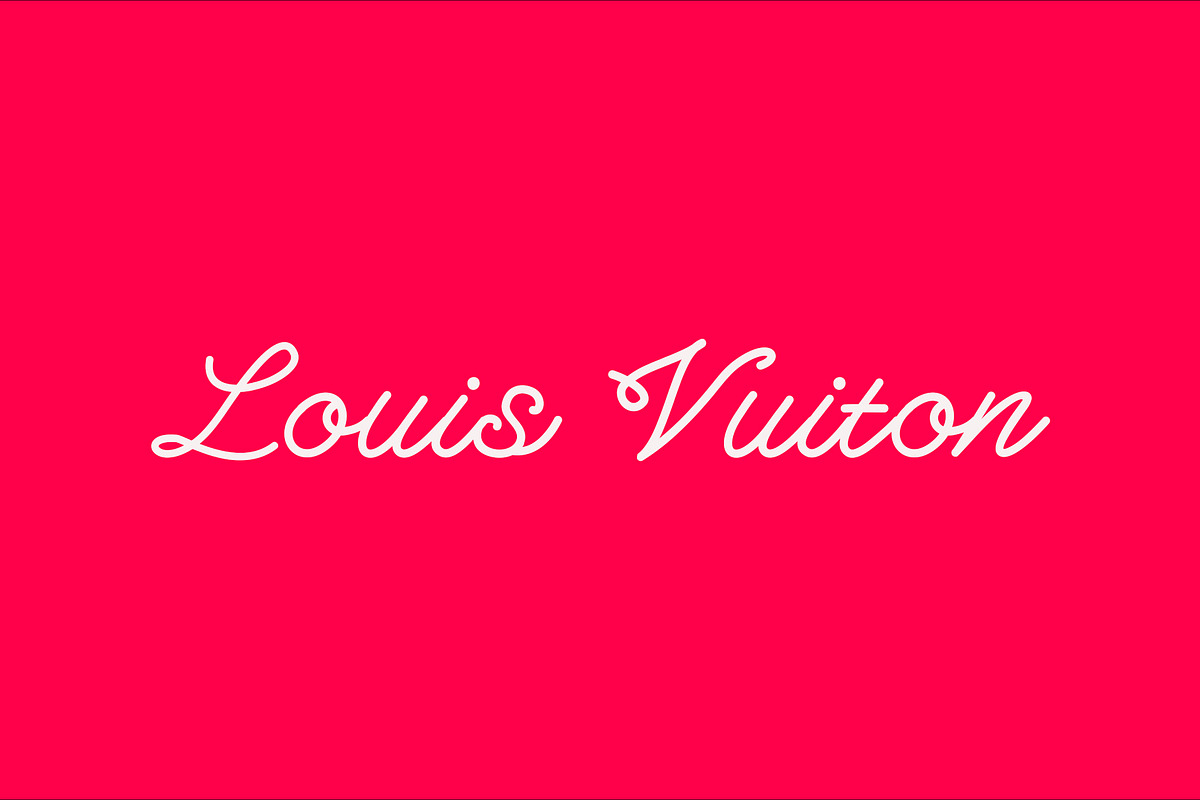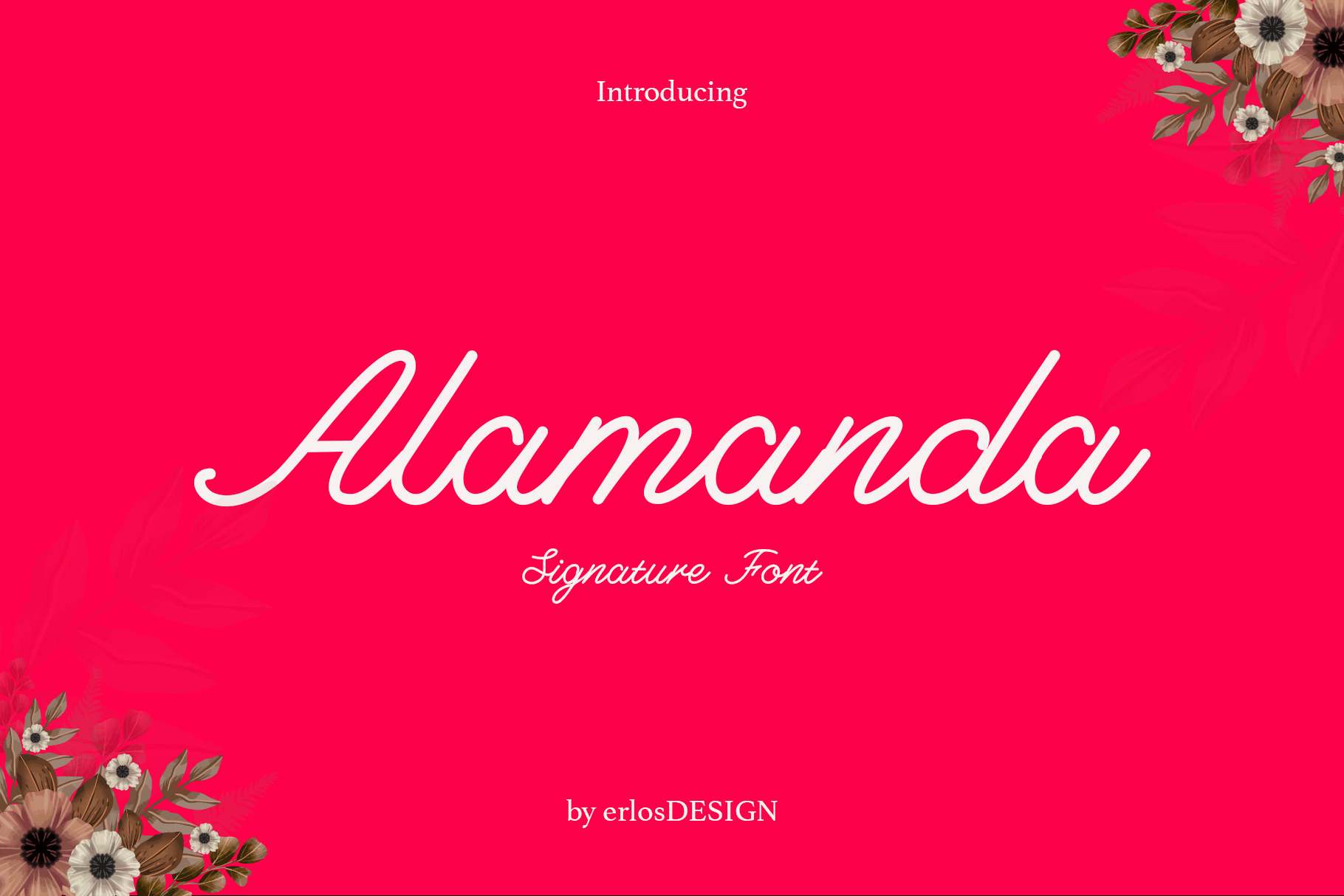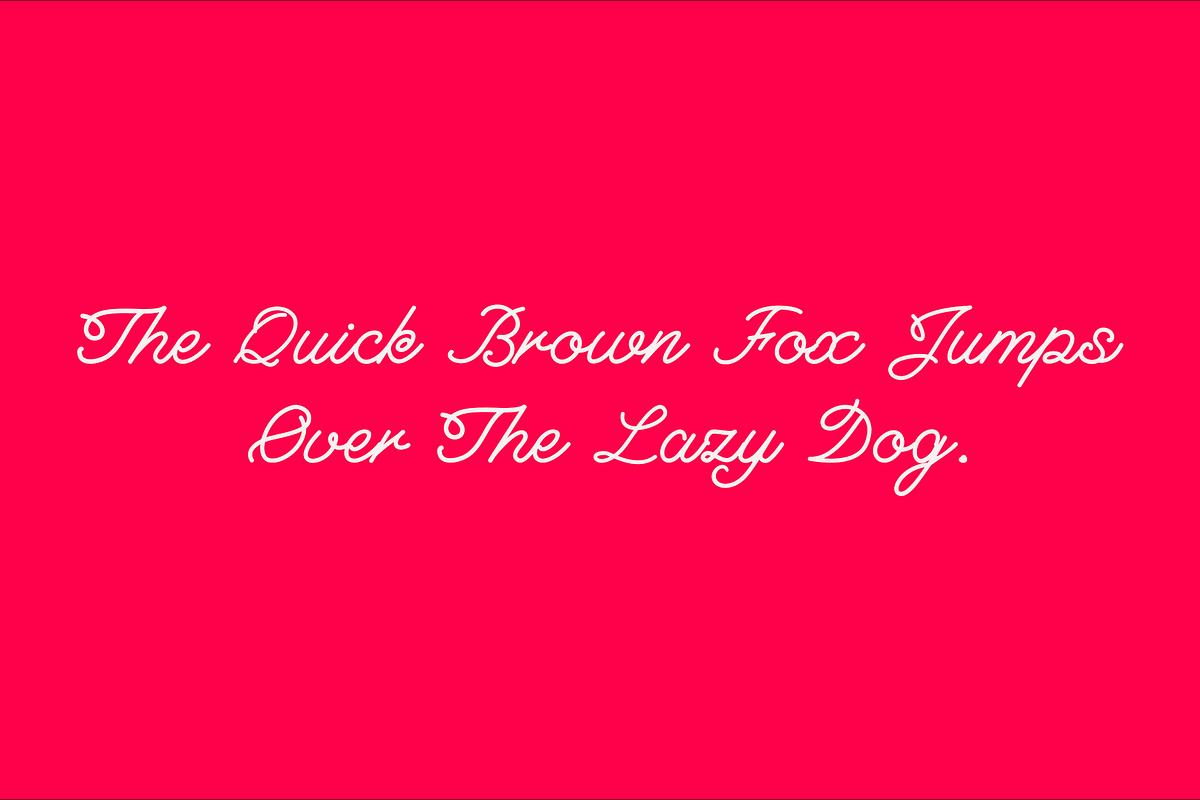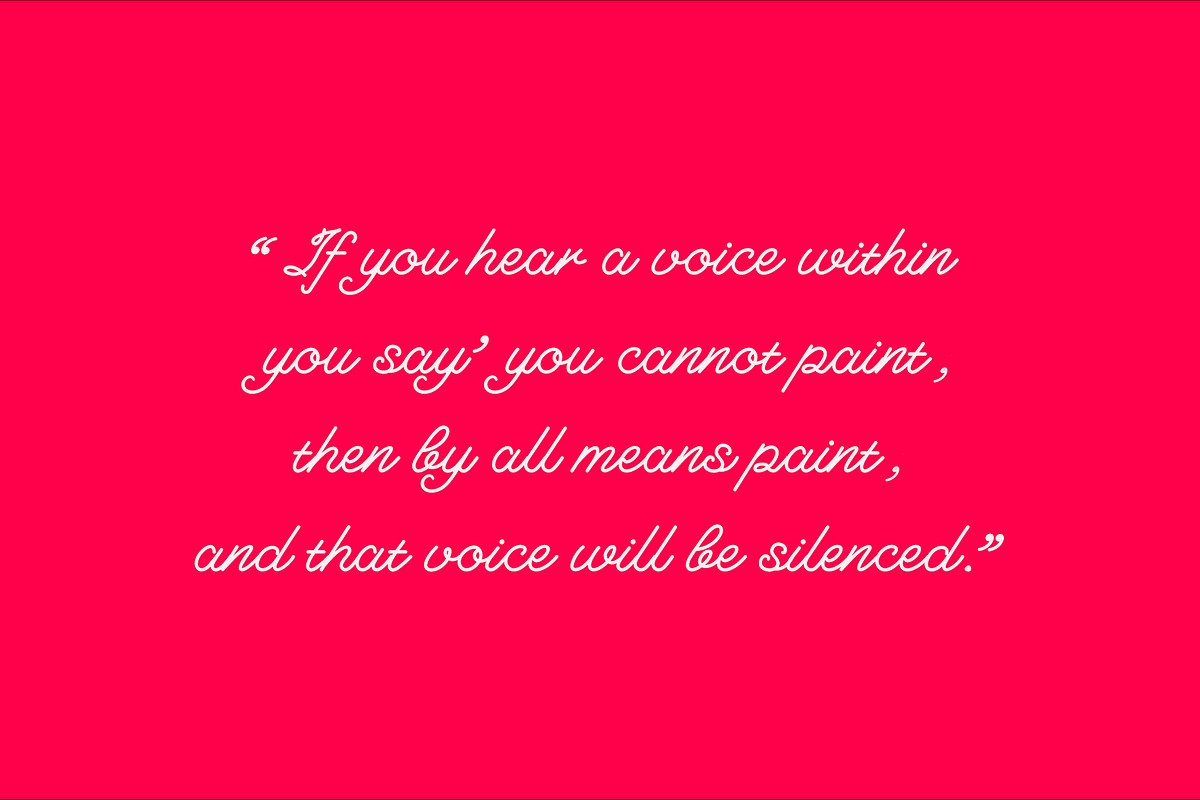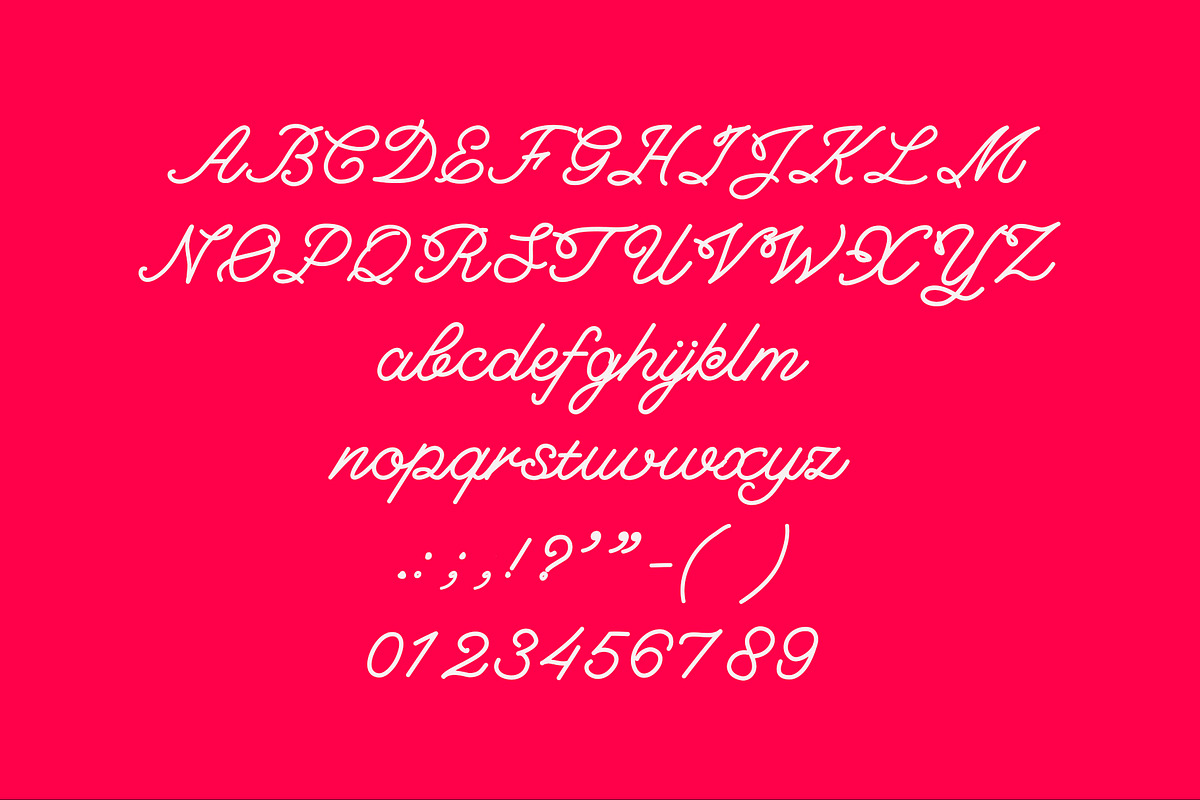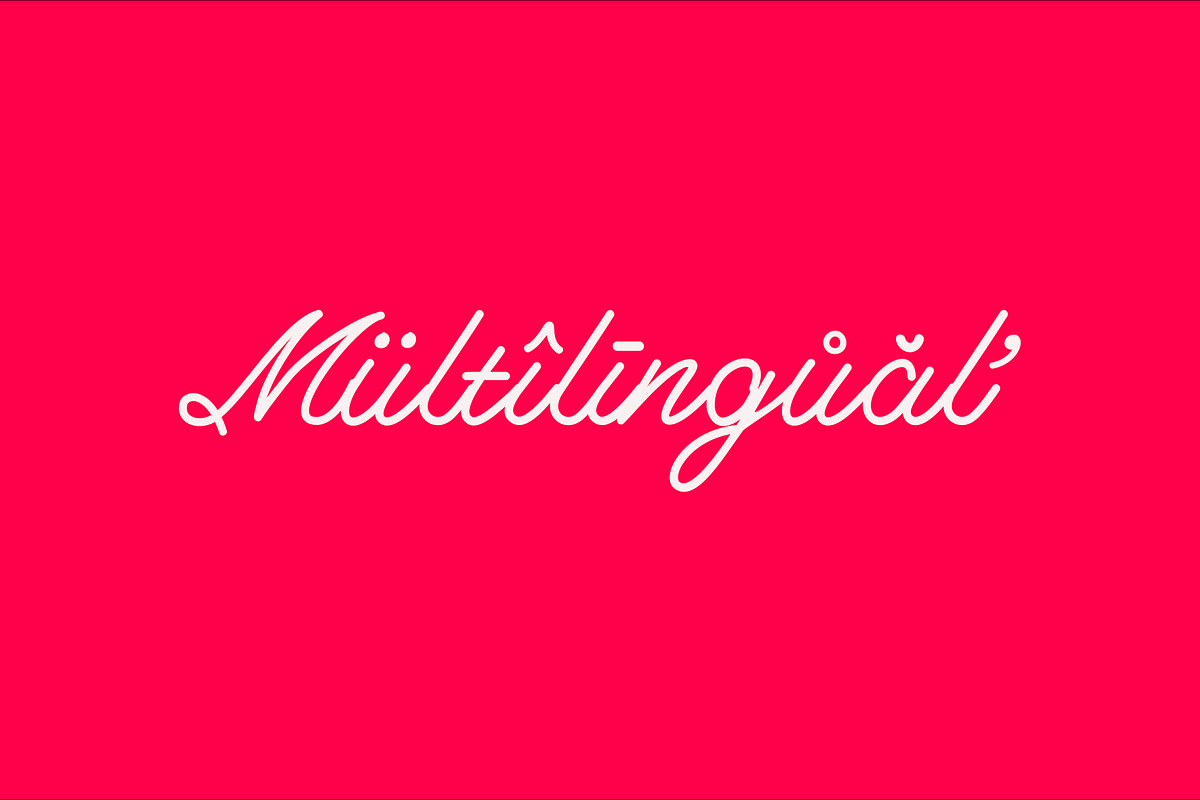
Alamanda Signature Font
Allamanda is a handwritten monoline script. It features an incredibly classic style, while still keeping a friendly feel. Perfect for titles, headings and logotypes for blog, products and lifestyle imagery like quotes and stuff.